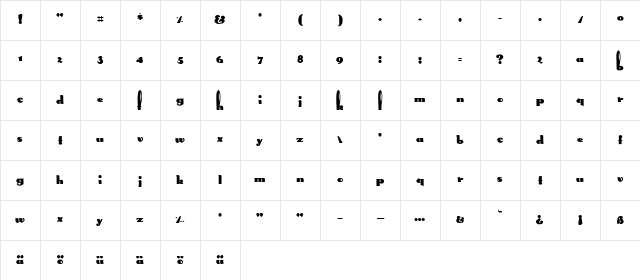
RabbitEars Normal
RabbitEars Family
Design Context for RabbitEars
RabbitEars is a composed and adaptable typeface that performs quietly and consistently across a wide range of design contexts.